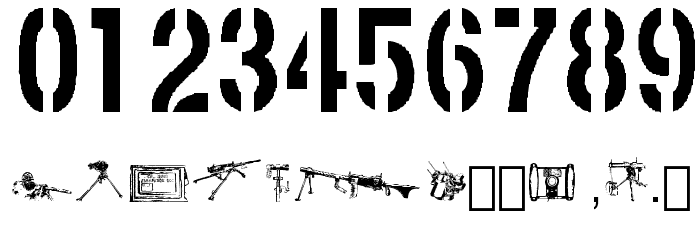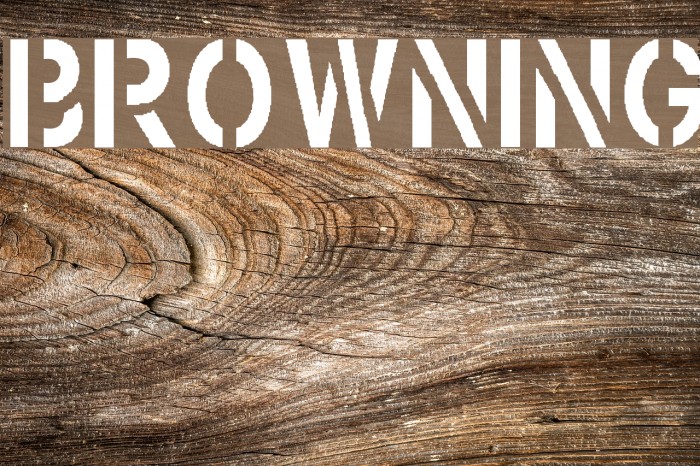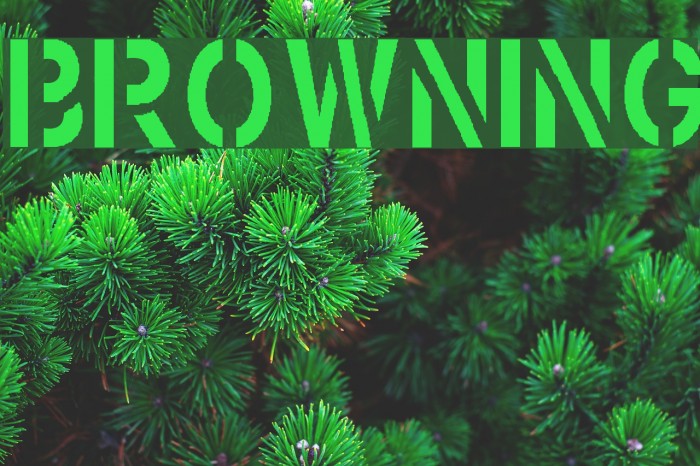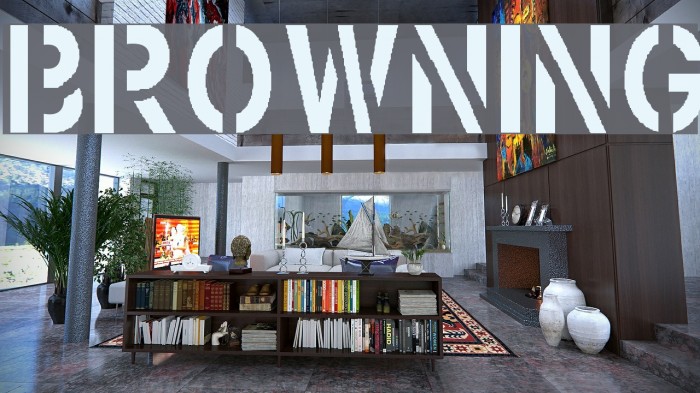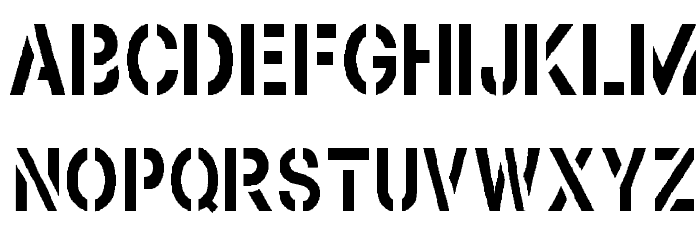
Browning Font
Browning Description
This font features a bold, stencil-like design with strong geometric shapes and high contrast. The characters are constructed with thick, solid lines and distinct cut-out sections, giving it a rugged and industrial appearance. The uppercase letters are uniform in height, while the numerals maintain a consistent style with the alphabet. The font's design is reminiscent of military or industrial stencils, often used for labeling and signage. Its boldness and unique cut-out style make it highly legible and attention-grabbing, suitable for impactful visual communication.
A bold, stencil-style font with geometric shapes and high contrast from Dingbats fonts.
- Proposed Projects: Ideal for military-themed designs, industrial signage, posters, and branding that requires a strong, authoritative presence.
- Overall Style: Industrial, Rugged
- Use Case: Headlines, Logos, Signage